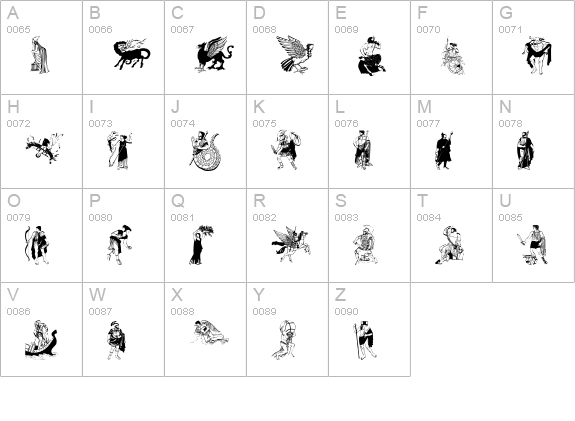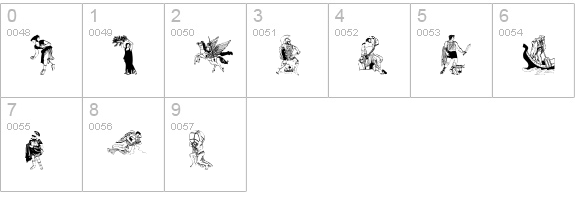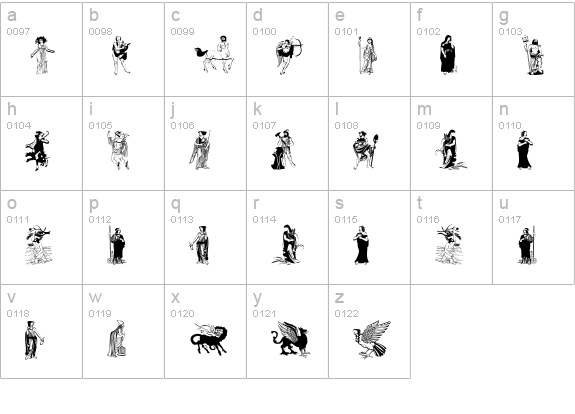
GreekMythes Font Details
GreekMythes font is a captivating typeface that draws inspiration from the rich tapestry of Greek mythology. With its elegant and intricate design, this font brings to life the timeless stories of gods, heroes, and monsters. Each letter is meticulously crafted to evoke the grandeur and mystique of ancient Greece. This font is perfect for adding a touch of mythic charm to your projects, whether you're designing a logo, creating a poster, or crafting a piece of digital art. Its versatility allows it to be used in a variety of contexts, from historical reenactments to modern-day branding. Best of all, GreekMythes font is available for free download at FontsMarket.com. So go ahead and unleash your creativity with this enchanting font that will transport you to the realm of Greek mythology with every stroke of the pen.